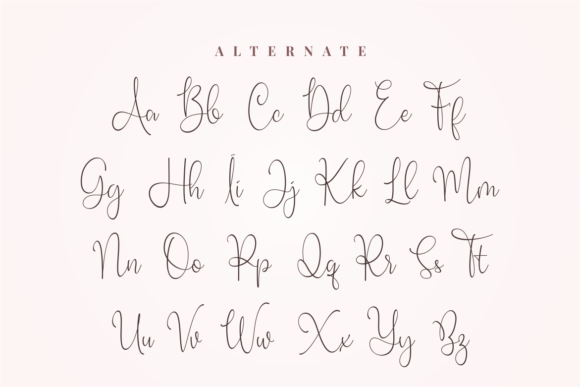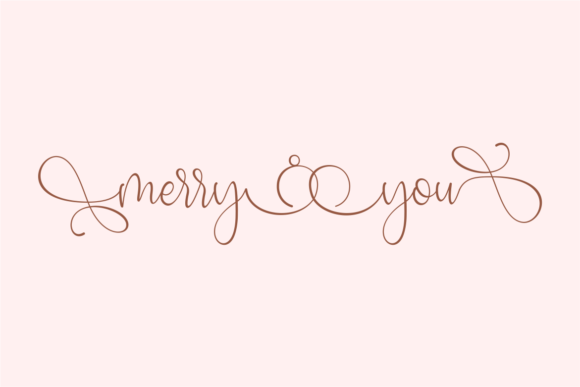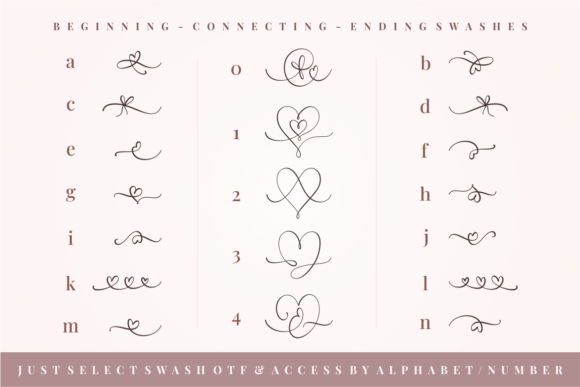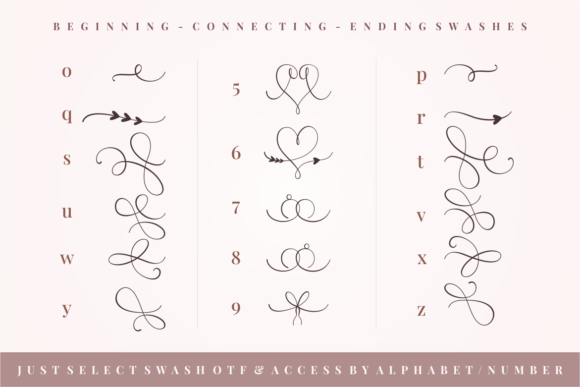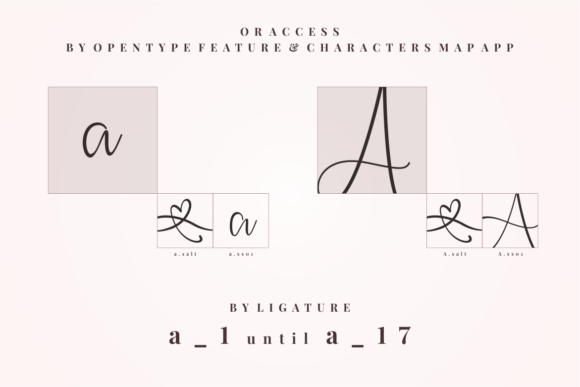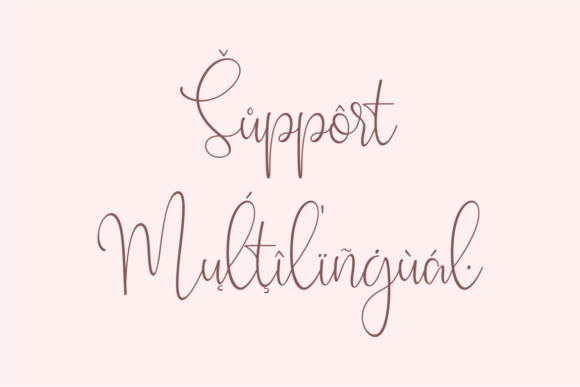
Unleash Your Creativity with Darrel Allura Second Font
Are you a designer, crafter, or DIY enthusiast looking for a font that can elevate your creative projects to the next level? Look no further than Darrel Allura Second, a magical script font that combines elegance and versatility. In this article, we’ll dive into the features and benefits of this exceptional font and explore how it can help you turn your ideas into stunning works of art.
The Elegance of Darrel Allura Second
Darrel Allura Second is a carefully crafted script font that exudes sophistication and refinement. With its flowing lines and intricate details, this font is perfect for adding a touch of luxury to any project. Whether you’re working on a branding campaign, a social media post, or a DIY craft, Darrel Allura Second is sure to make a lasting impression.
One of the standout features of Darrel Allura Second is its incredible versatility. This font can be used for a wide range of creative projects, from Instagram posts and stories to calligraphy scripts and DIY crafts. Whether you’re a seasoned designer or a beginner, Darrel Allura Second provides the perfect combination of style and flexibility to bring your ideas to life.
Darrel Allura Second is PUA (Private Use Area) encoded, which means that you can access all of the glyphs and swashes with ease. This feature makes it simple to customize your text and add unique flourishes to your designs. With PUA encoding, you can:
- Easily access alternative characters and glyphs
- Customize your text with swashes and flourishes
- Create stunning calligraphy scripts and hand-lettered designs
Darrel Allura Second is an ideal font for designers and crafters who want to add a touch of elegance and sophistication to their work. Whether you’re creating:
- Branding materials and logos
- DIY crafts and handmade cards
- Calligraphy scripts and hand-lettered designs
Darrel Allura Second provides the perfect combination of style, flexibility, and ease of use to help you achieve your creative goals.
Tips and Inspiration for Using Darrel Allura Second
To get the most out of Darrel Allura Second, here are a few tips and inspiration ideas:
- Experiment with different font sizes and colors to create visual interest
- Use the glyphs and swashes to add unique flourishes to your designs
- Combine Darrel Allura Second with other fonts for a striking contrast
- Try using the font for hand-lettered quotes and phrases